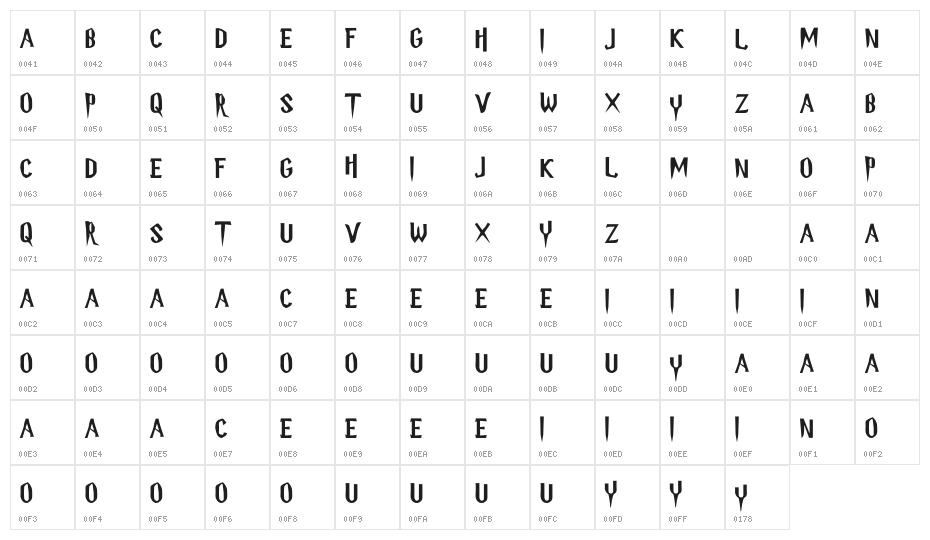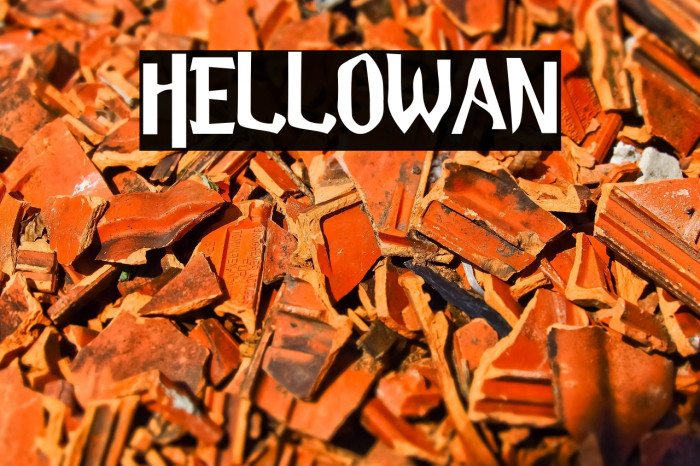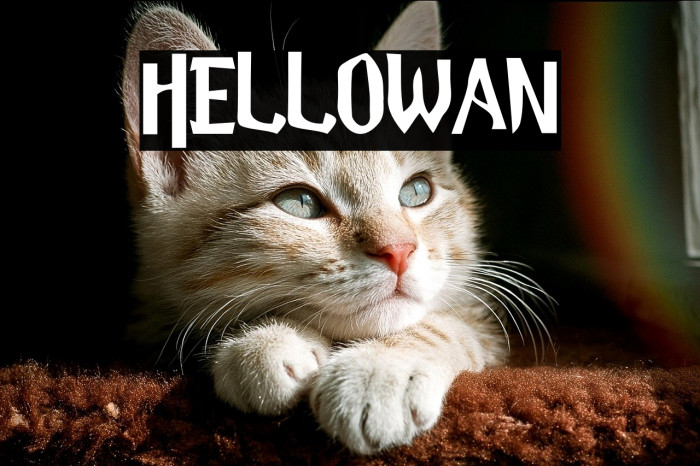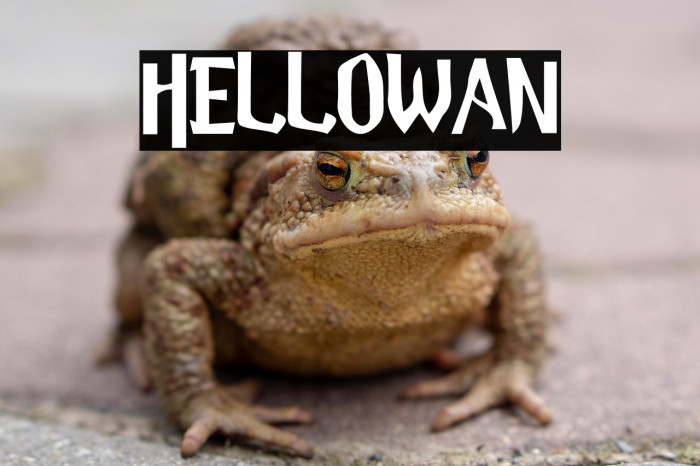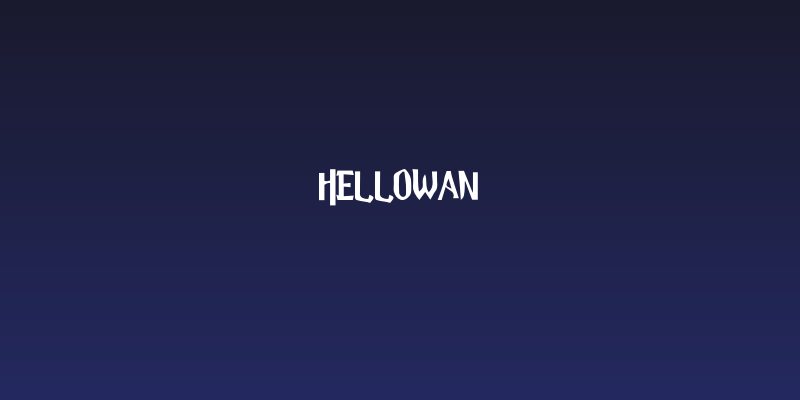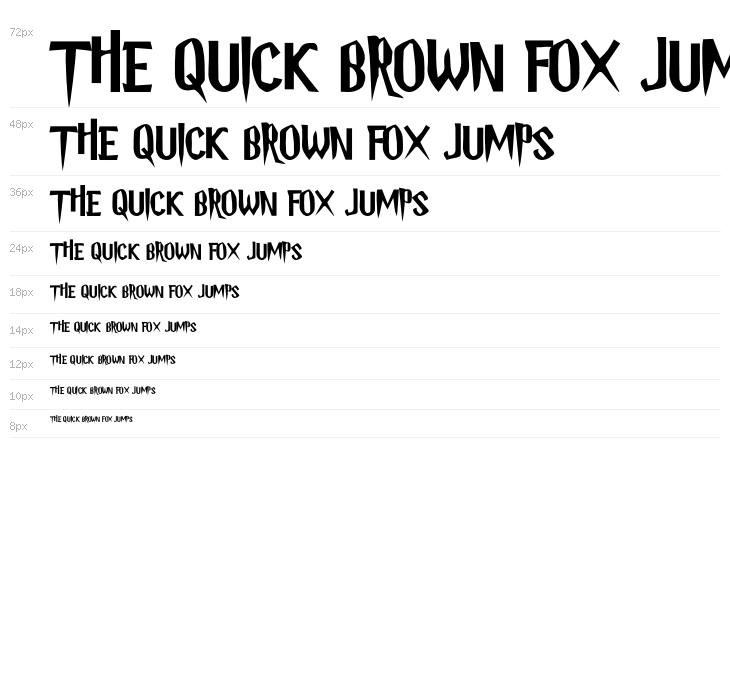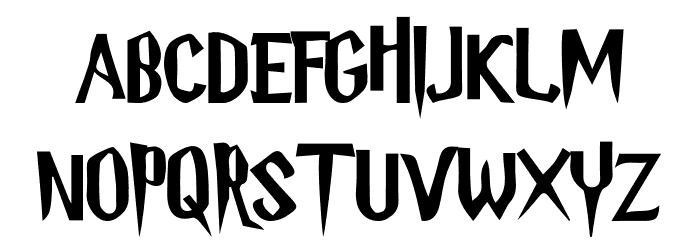
Hellowan Font
Hellowan Description
This font features a bold and edgy design with sharp, angular lines that give it a dynamic and aggressive appearance. The uppercase letters are particularly striking, with elongated points and a slightly condensed form that adds to its dramatic flair. The overall style is reminiscent of a modern, gothic aesthetic, making it ideal for projects that require a strong visual impact. The font's unique characteristics make it stand out, especially in larger sizes where its intricate details can be fully appreciated.
| Overall Style | Modern Gothic |
| Proposed Projects | Ideal for use in posters, album covers, video game titles, and any project requiring a bold, dramatic typeface. |